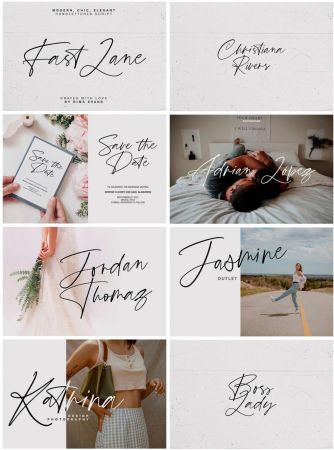
Fast Lane is a flowing handwritten font, described by an elegant touch, perfect for your favorite projects. Fall in love with its incredibly distinct and timeless style and use it to create spectacular designs!